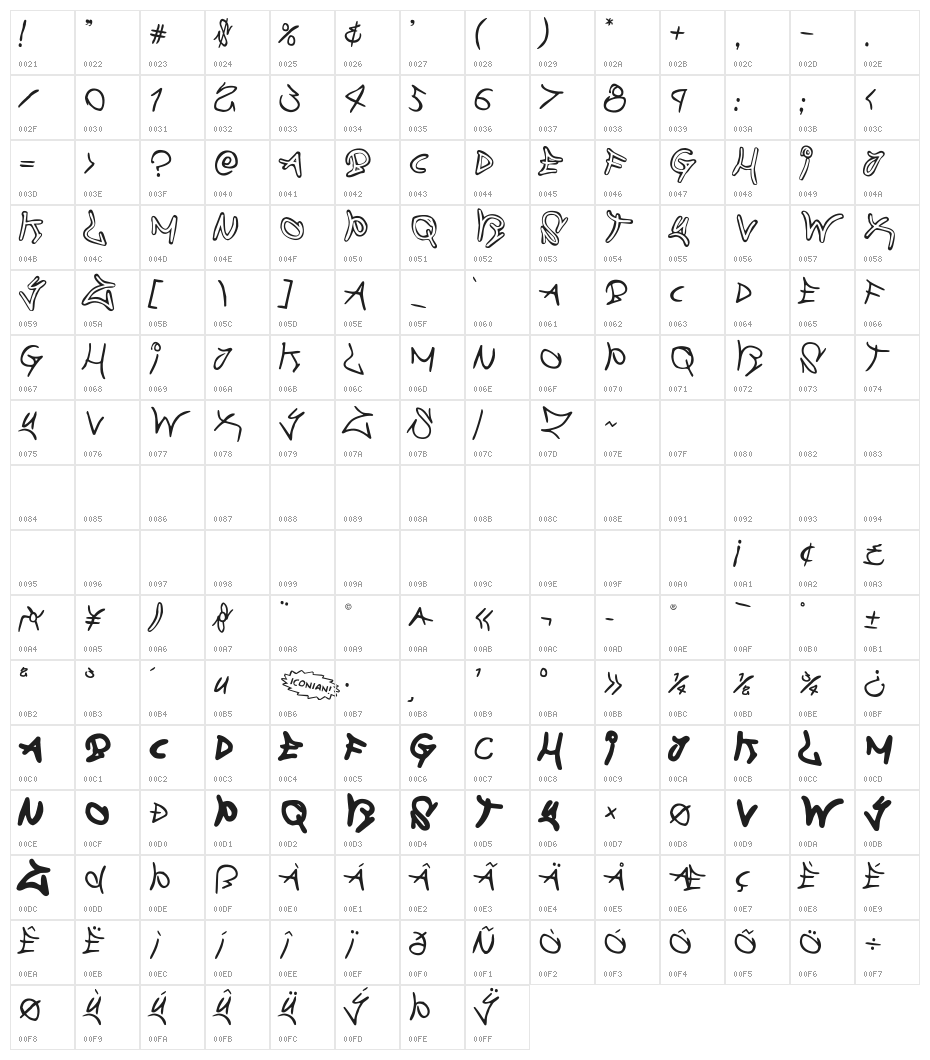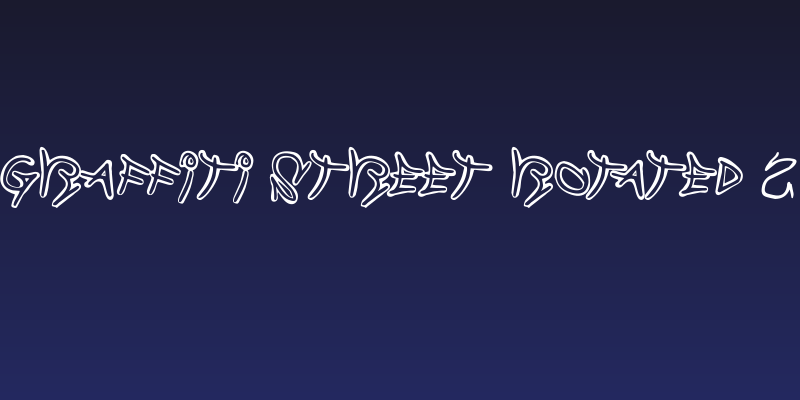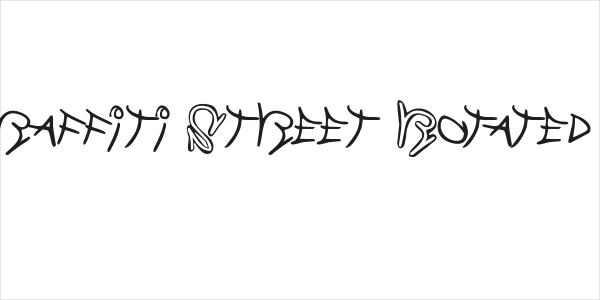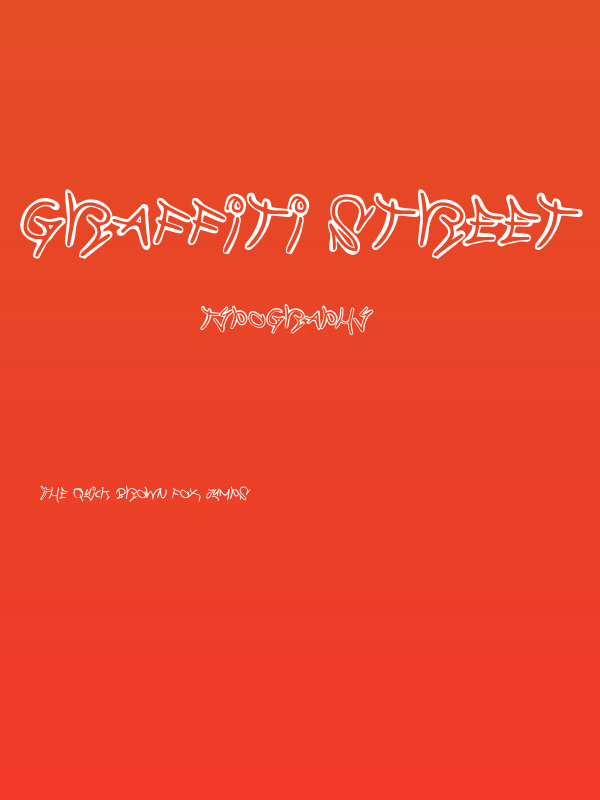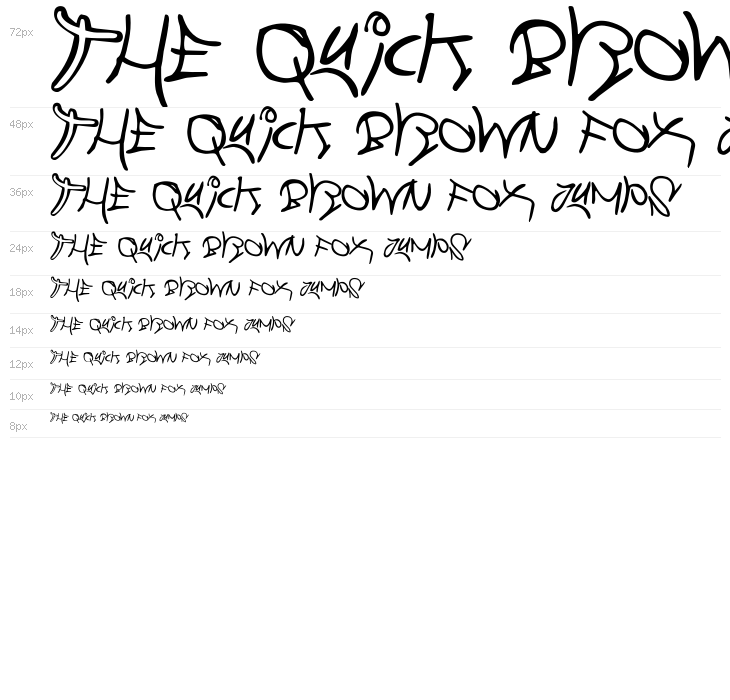
Graffiti Street Rotated 2 Font
Graffiti Street Rotated 2 Description
This font embodies the raw, expressive style of street graffiti, characterized by its bold and dynamic letterforms. The uppercase and lowercase letters exhibit a fluid, hand-drawn aesthetic with exaggerated curves and angles, giving each character a unique and energetic appearance. The numbers and special characters maintain this lively style, adding a sense of movement and spontaneity. The overall design is highly decorative, capturing the essence of urban art with its edgy and rebellious flair. The strokes are thick and varied, contributing to a high contrast that enhances the font's visual impact.
| Overall Style | Urban, Edgy, Artistic |
| Use Case | Logos, Posters, Album Covers |
| Proposed Projects | Ideal for street art projects, urban-themed designs, music album covers, and edgy branding. |